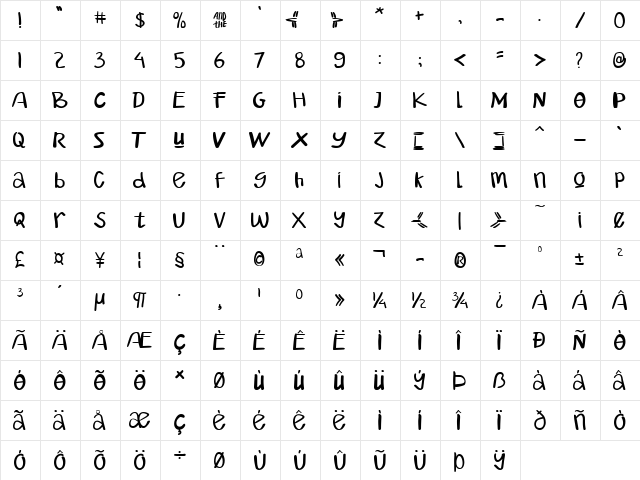
ice cream Regular Font Preview
ice cream Regular
ice cream Regular Font Details
Design Context for ice cream Typeface
ice cream is a composed and adaptable typeface that performs quietly and consistently across a wide range of design contexts.